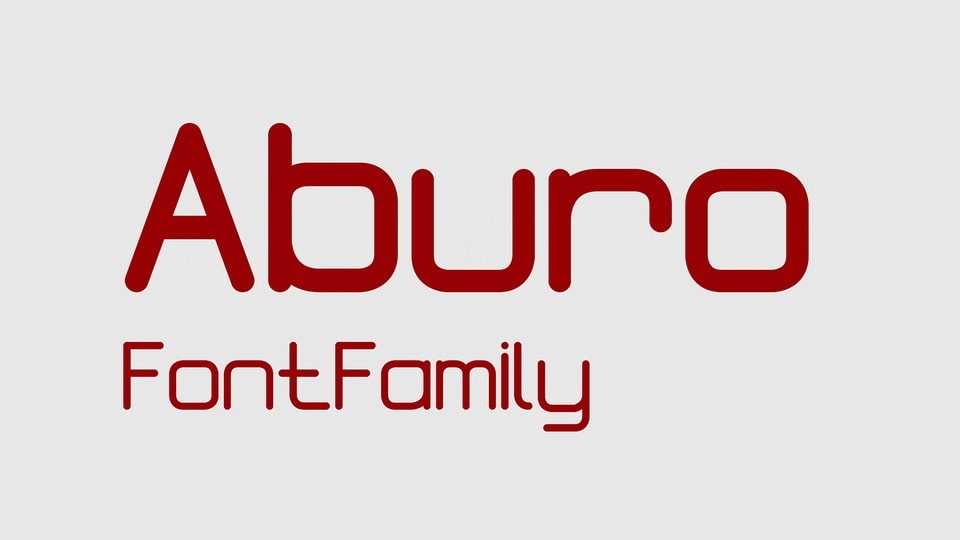
Download Aburo font, a modern sans serif typeface that has original look with rounded corners throughout and is strong, dynamic, machine generated. Aburo font is suitable for for display headlines, logotype, branding and similar applications.
Designer: Rosyid Raihan